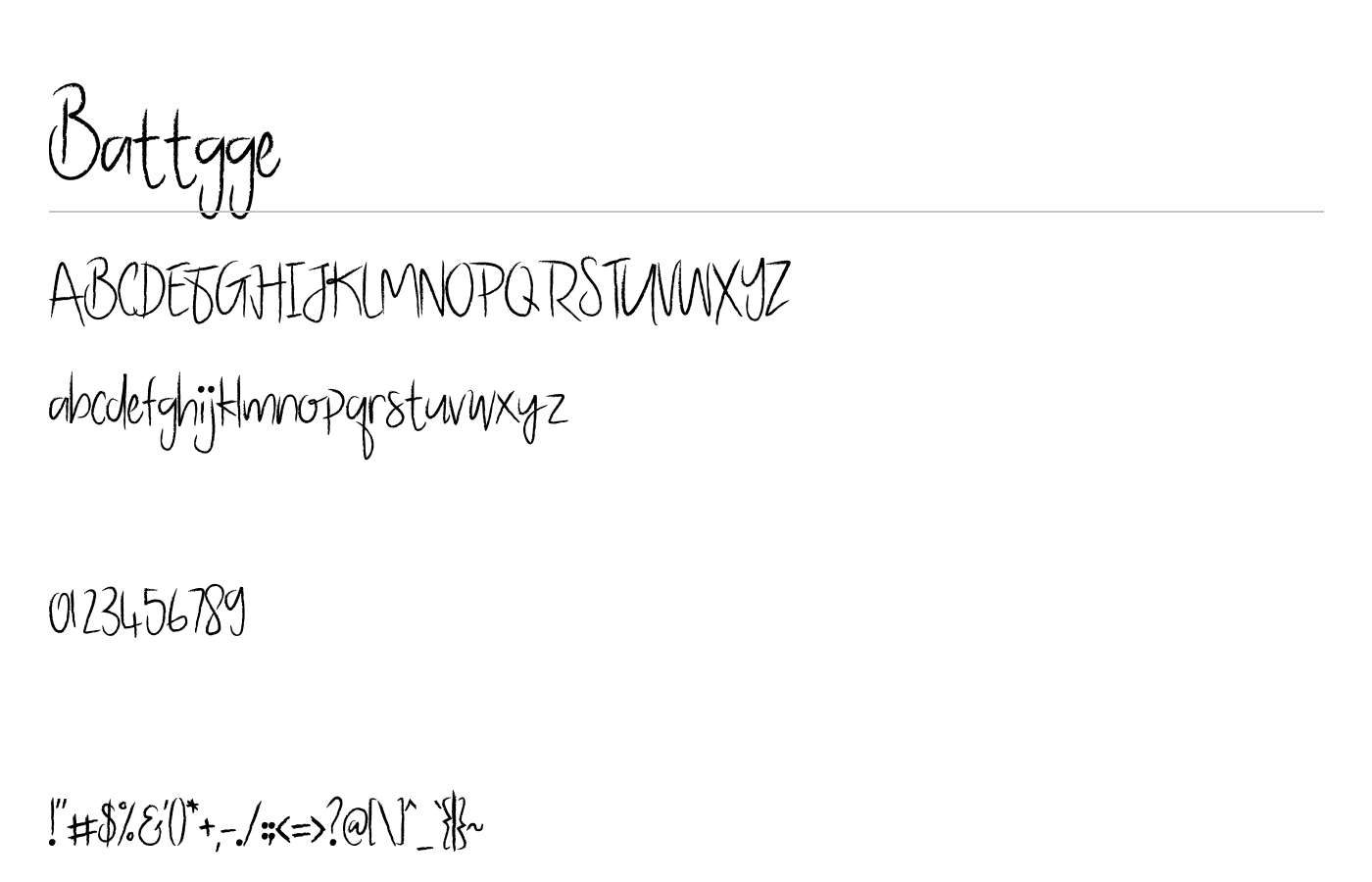
Battgge is a playful, hand-drawn script font with a thin, delicate weight and tall, narrow letterforms that give it a whimsical and informal feel. Its irregular stroke style and quirky character shapes make it ideal for creative projects, casual branding, and artistic designs where a personal, expressive touch is desired. This font works best in headlines, invitations, and any context that benefits from a distinctive, handwritten look.
Battgge Font
About Battgge Font
| Font family | Battgge Font |